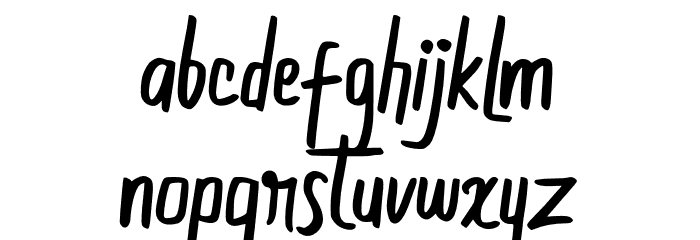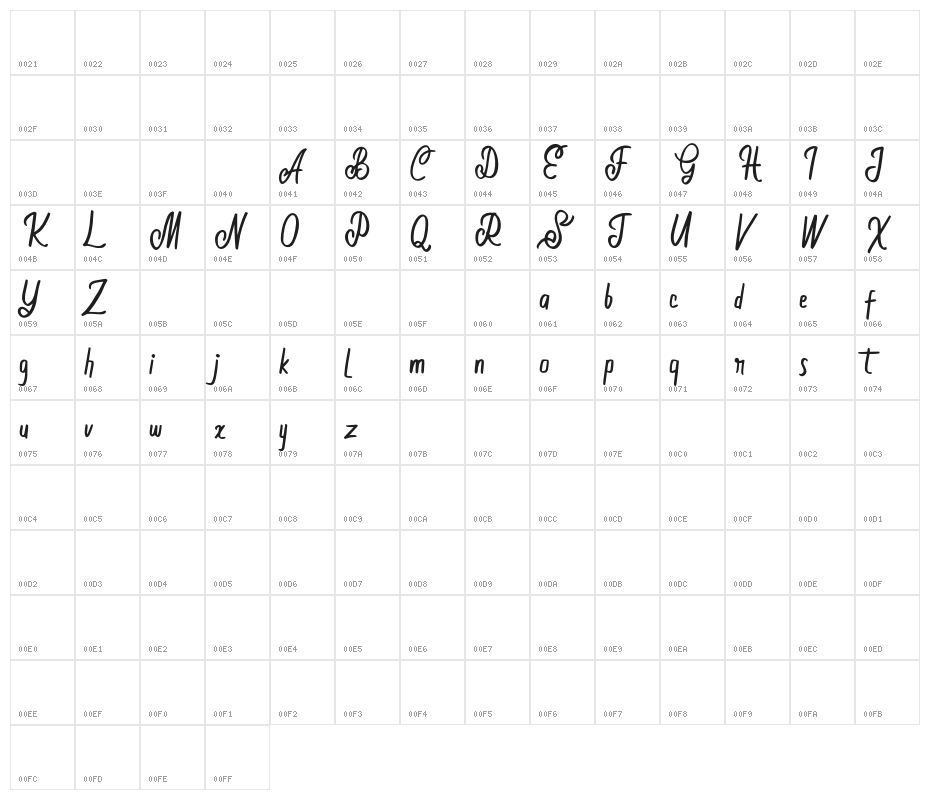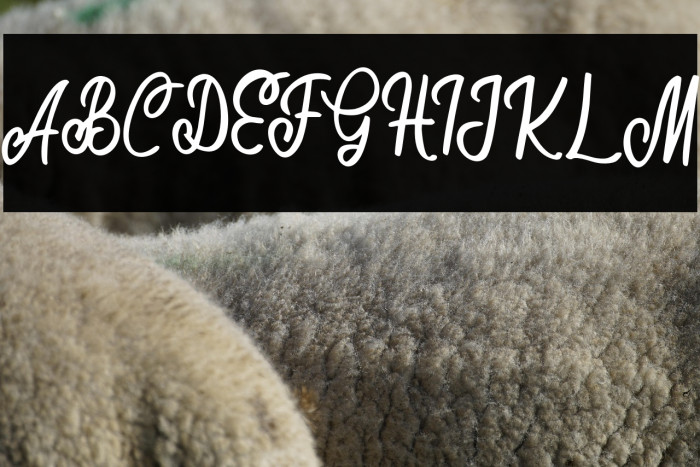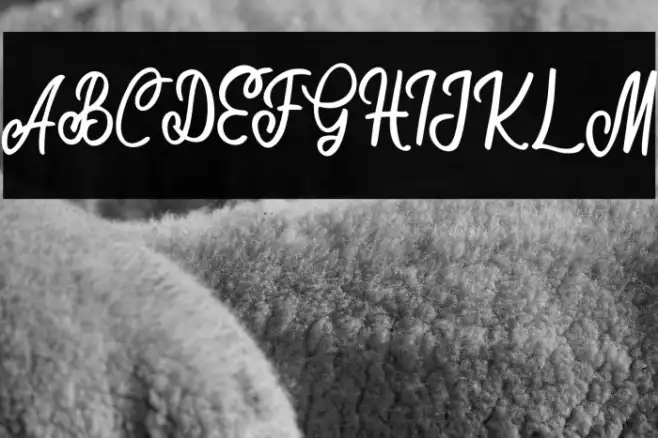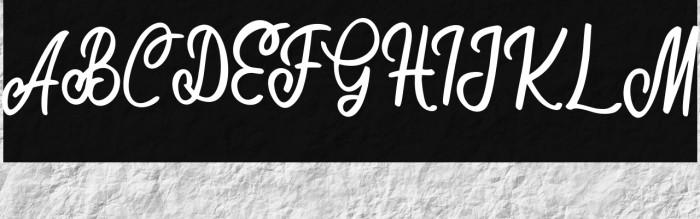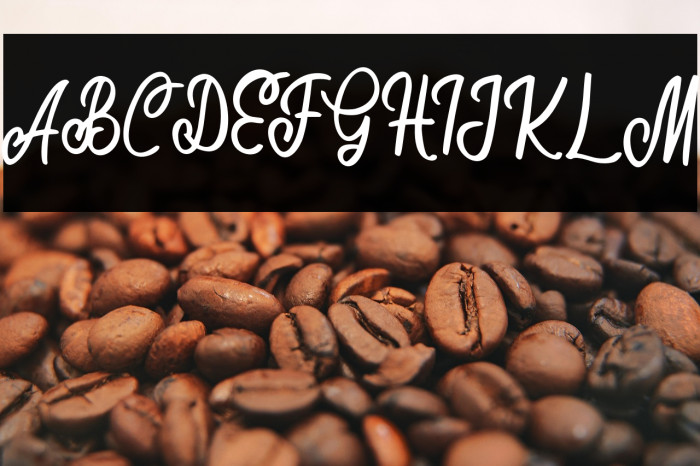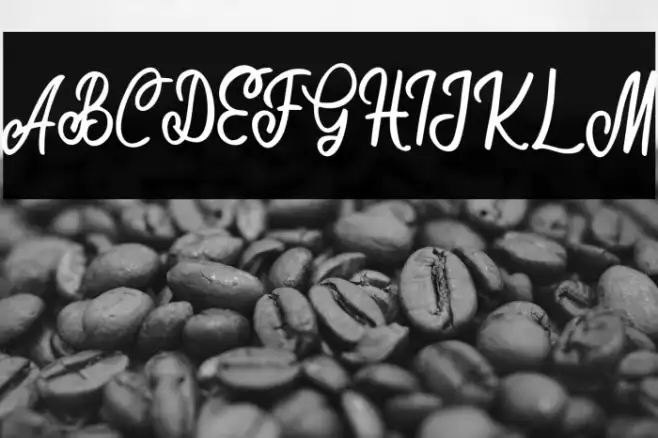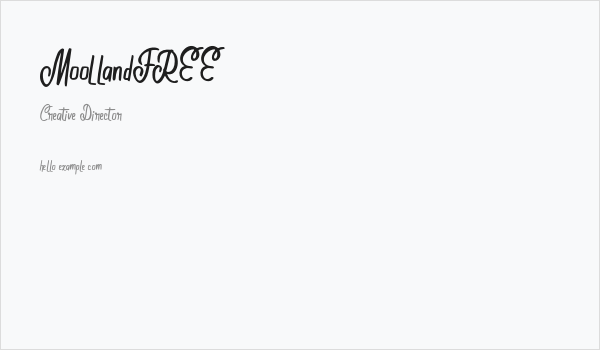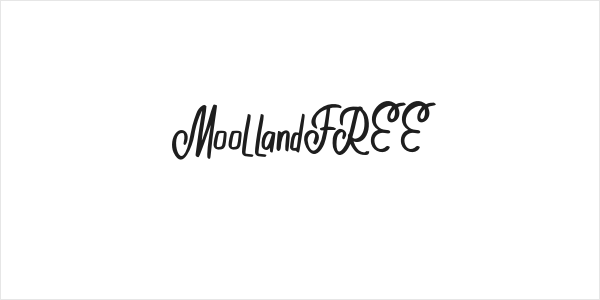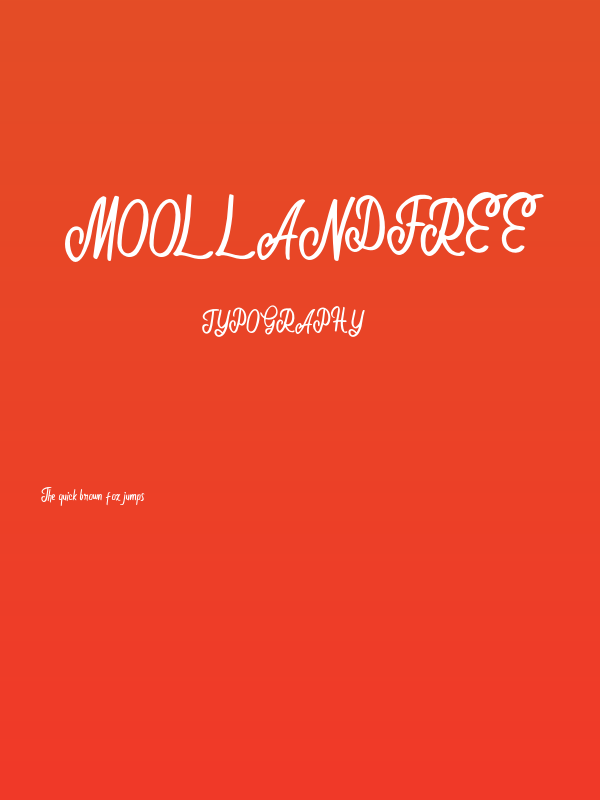
MoollandFREE Font
This font features a playful and elegant script style with a handwritten appearance. The uppercase letters are characterized by their flowing, interconnected strokes, which give a sense of movement and fluidity. The lowercase letters maintain a consistent style, with some characters featuring unique loops and curves that add to the overall charm. The numbers and special characters are designed to match the whimsical nature of the alphabet, making them suitable for creative and decorative purposes. The font's overall appearance is both sophisticated and approachable, making it versatile for various design needs.
A playful and elegant handwritten script font with flowing, interconnected strokes.
- Font: MoollandFREE
- Proposed Projects: Ideal for wedding invitations, greeting cards, logos, and branding materials that require a personal touch.
- Category: Script
- Use Case: Logos, Invitations, Greeting Cards